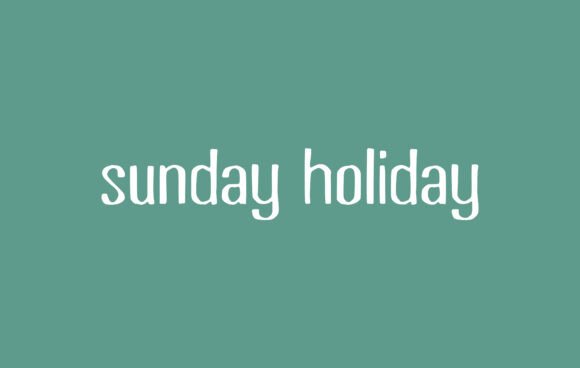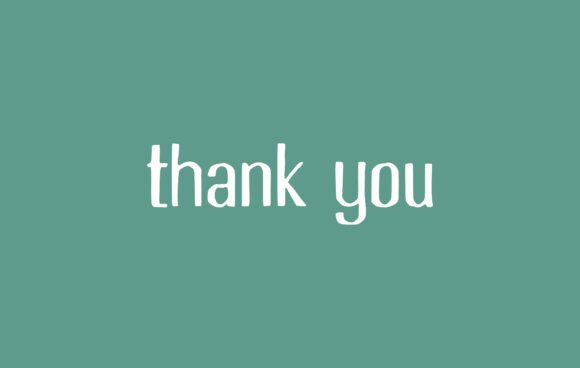
Unlock the Magic of Handwritten Charm: Introducing Hayes Font
Have you ever sat down with a blank piece of paper, a pen, and a spark of creativity, only to have your ideas flow effortlessly onto the page? It’s that feeling of freedom and expression that many designers crave, and it’s exactly what the Hayes Font is designed to evoke.
As a beautiful, authentic handwritten font with a romantic touch, Hayes Font is perfect for designers looking to add a personal touch to their projects. Whether you’re working on a magazine headline, a social media post, or a wedding invitation, this font is sure to captivate your audience. Its legibility and versatility make it a valuable asset for any designer, allowing you to take your creative ideas to new heights.
Hayes Font Key Features
- Font Family: Hayes is a sans-serif typeface, designed specifically for digital use.
- Unique Characteristics: Hayes Font features a clean, modern design with a subtle rounded edge, making it an excellent choice for user interfaces, digital signage, and other applications where readability is crucial.
Hayes Font Review
Overall, I was quite impressed with the Hayes Font. ✨ It’s a versatile and modern sans-serif font that can be used in a variety of contexts, from corporate branding to digital interfaces.
- ✨ Clean and minimalistic design makes it perfect for digital interfaces
- ✨ Excellent legibility, even at small font sizes
- ✨ Versatile and can be used in a variety of contexts
- ✨ Comes in multiple weights and styles, making it easy to customize
- ⚠️ Limited expressiveness and emotional depth, making it less suitable for artistic or creative projects
- ⚠️ Some users may find it too plain or boring
Overall, I’d say the Hayes Font is a solid choice for anyone looking for a clean and modern sans-serif font. While it may not be the most exciting or expressive font out there, it’s a reliable and versatile option that’s sure to please.
Tips for Getting the Most Out of Hayes Font
For best results, use Hayes Font in combination with other modern sans-serif fonts. Experiment with different font sizes and styles to achieve a balanced look.
The Hayes Font is ideal for:
- Corporate branding and marketing materials.
- Website and app design.
- Business presentations and reports.
Alternatives to Hayes Font for Designers
Open Sans is a modern sans-serif font that is highly legible and versatile. It is ideal for digital interfaces, websites, and applications where readability is crucial. Compared to Hayes Font, Open Sans has a more rounded and friendly feel, making it suitable for a wide range of design projects.
Montserrat is a geometric sans-serif font that is perfect for urban and modern designs. It is highly legible and has a strong, bold feel that is ideal for headlines and titles. Unlike Hayes Font, Montserrat has a more angular and geometric feel, making it suitable for designs that require a strong, modern aesthetic.
Lato is a modern sans-serif font that is highly legible and versatile. It has a clean and elegant feel that is ideal for digital interfaces, websites, and applications. Compared to Hayes Font, Lato has a more refined and sophisticated feel, making it suitable for designs that require a high level of sophistication.
Inter is a modern sans-serif font that is highly legible and versatile. It has a clean and elegant feel that is ideal for digital interfaces, websites, and applications. Compared to Hayes Font, Inter has a more minimalist and modern feel, making it suitable for designs that require a clean and simple aesthetic.